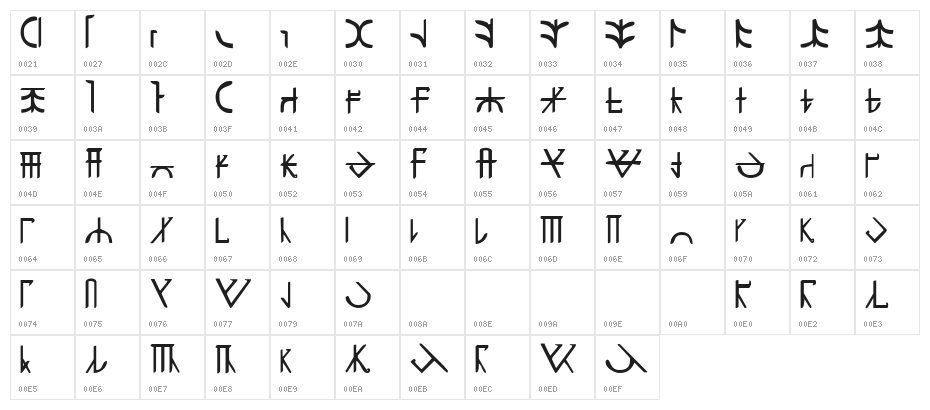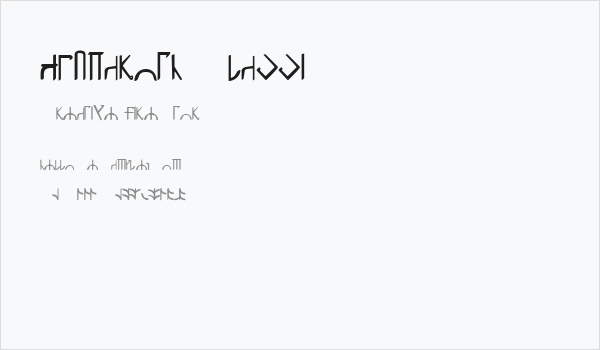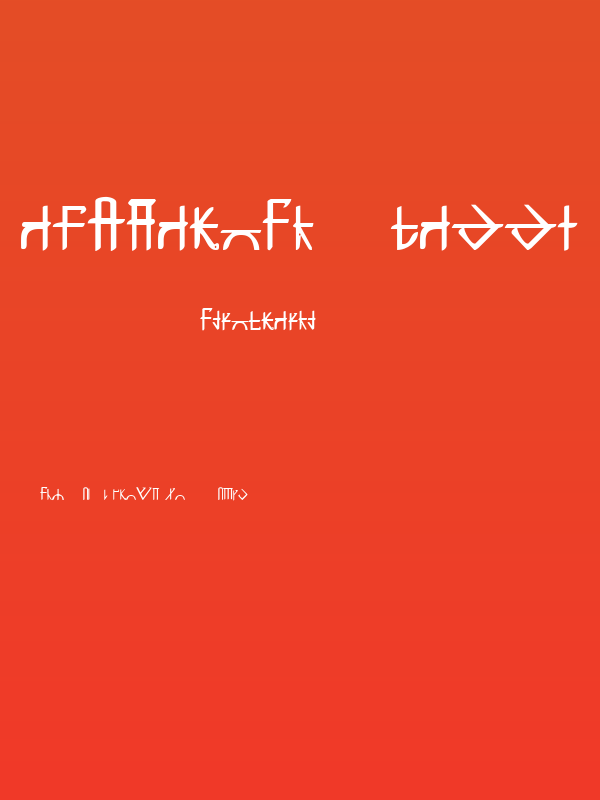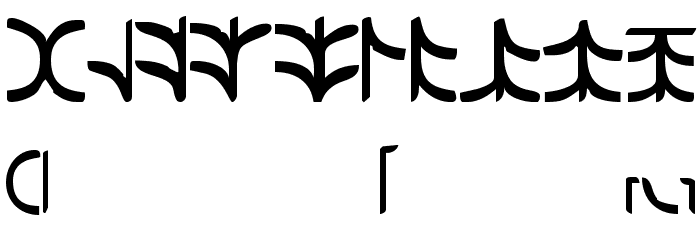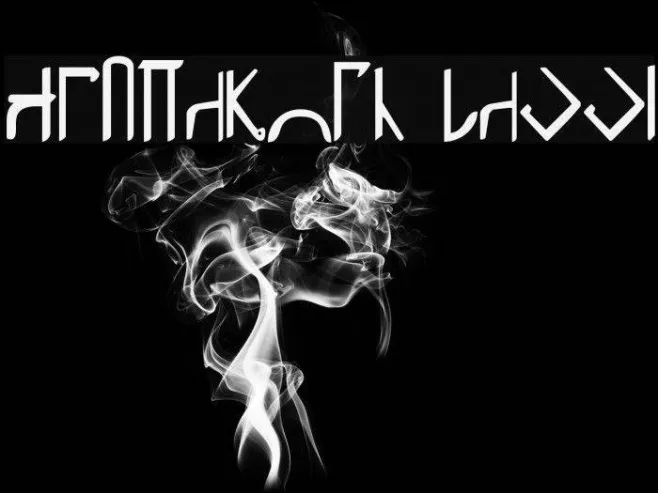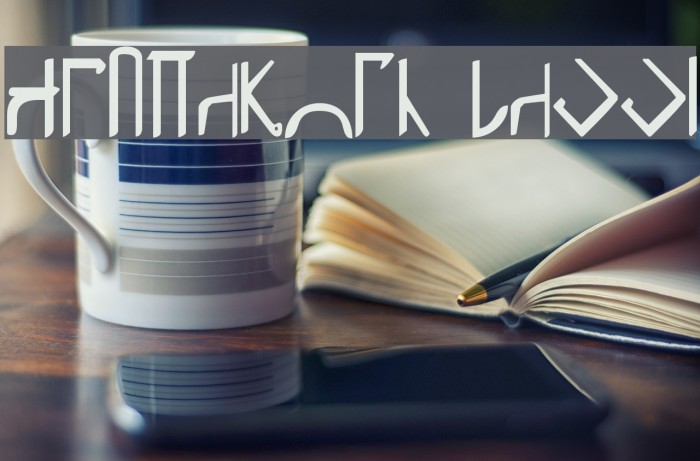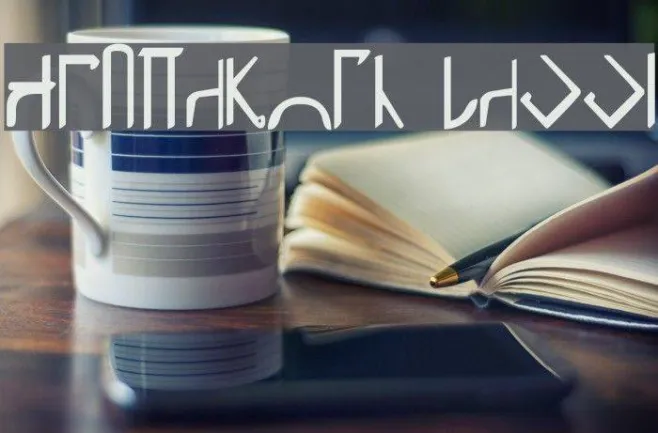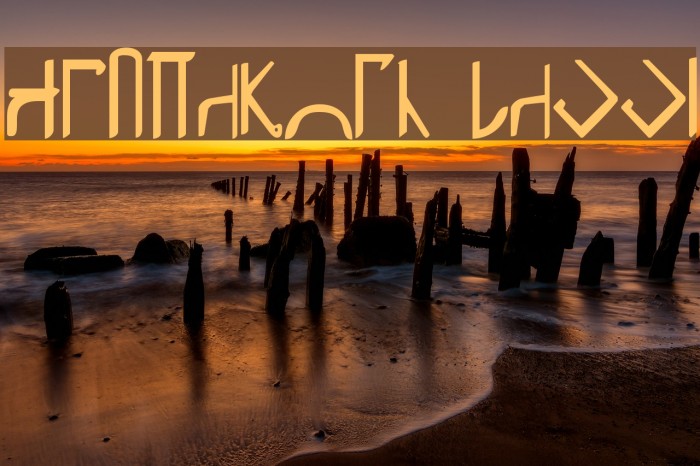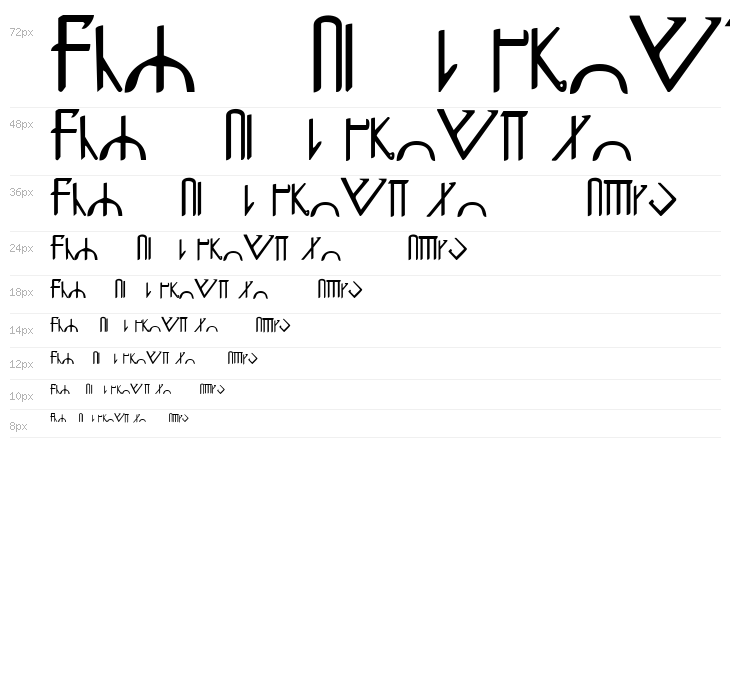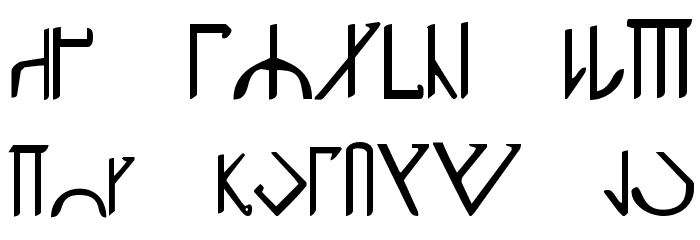
Adunaroth Classic Font
Adunaroth Classic Description
This font features a unique and intricate design, reminiscent of ancient scripts or fantasy alphabets. The characters are composed of bold, angular lines with a high degree of stylization, giving them an almost mystical appearance. Each letter is distinct, with some incorporating curves and others sharp angles, creating a varied and dynamic visual texture. The overall aesthetic is both decorative and complex, making it suitable for projects that require a touch of the exotic or otherworldly. The font's distinctiveness lies in its ability to evoke a sense of mystery and antiquity, making it ideal for creative and thematic applications.
| Use Case | Logos, Titles, Thematic Designs |
| Proposed Projects | Ideal for fantasy-themed projects, game design, book covers, or any creative work requiring an exotic and mysterious typeface. |